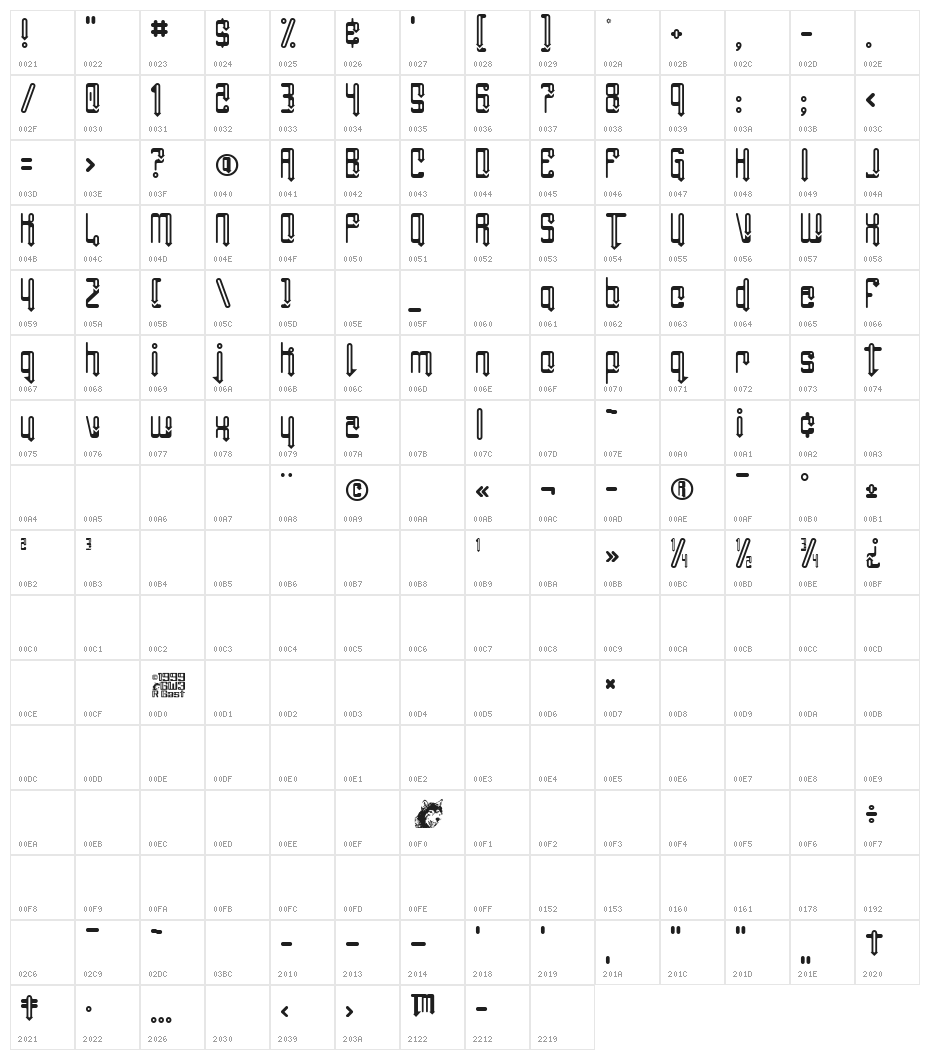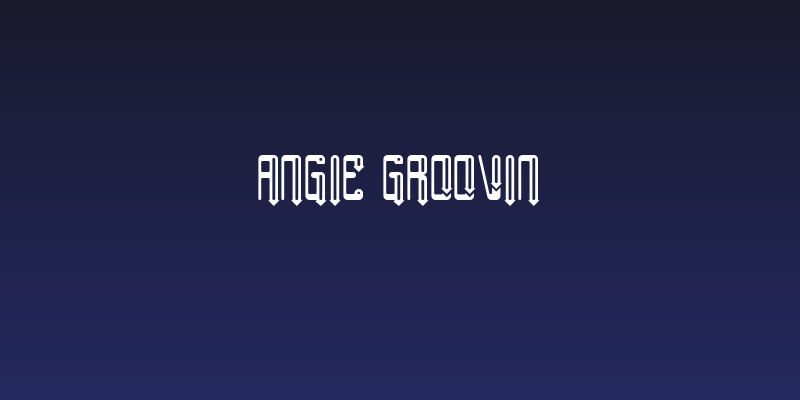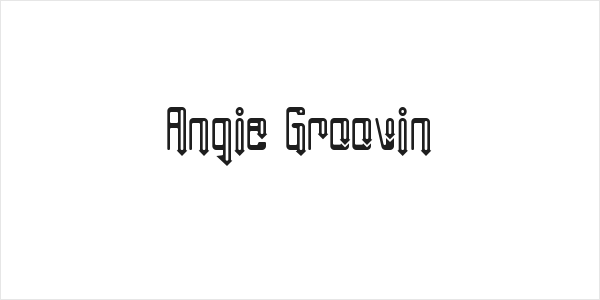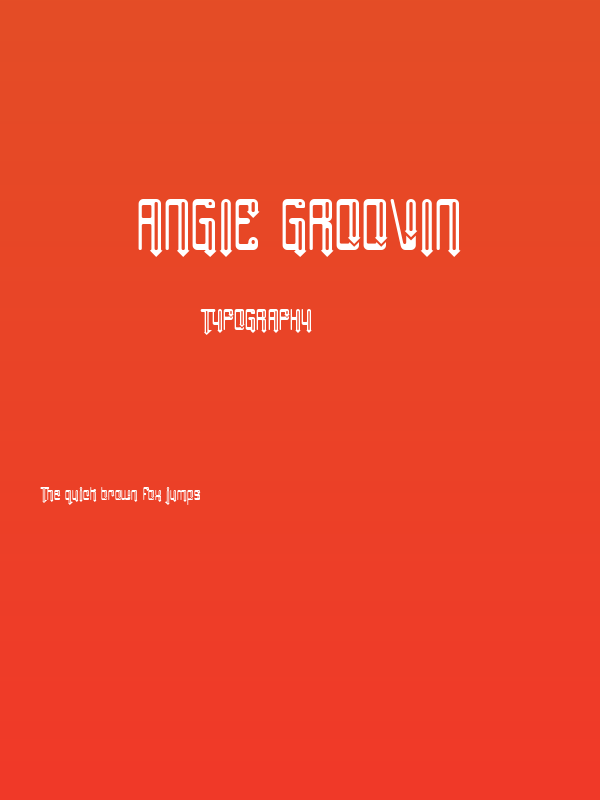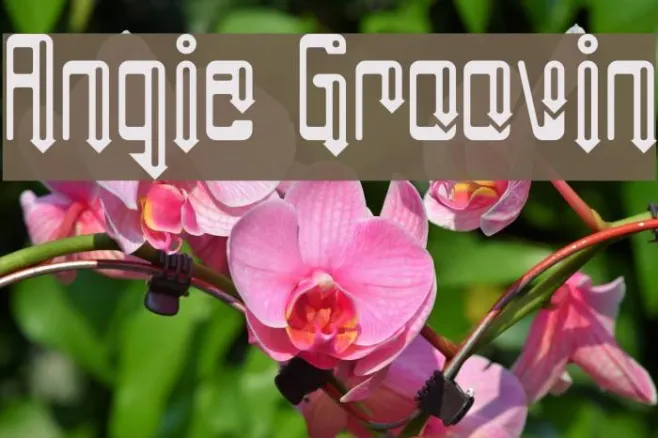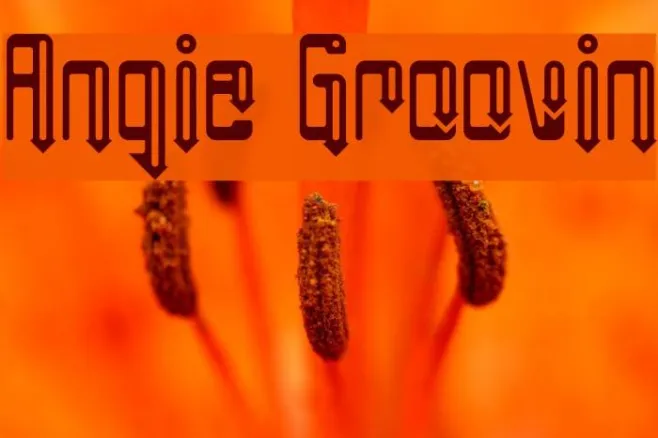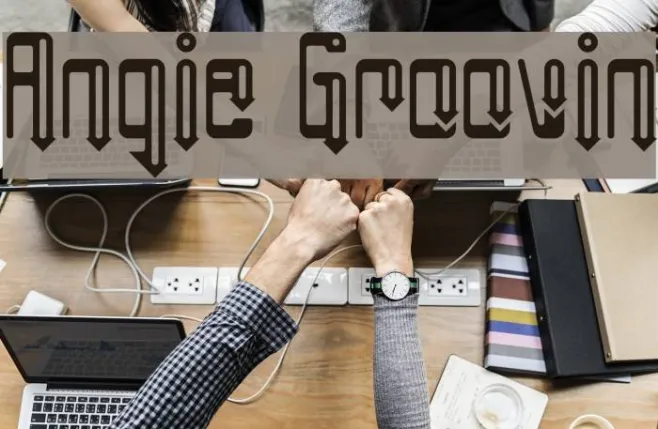
Angie Groovin Font
Angie Groovin Description
This font features a unique and modern design with geometric elements and a futuristic feel. The characters are constructed with bold, straight lines and sharp angles, giving it a distinctive, tech-inspired appearance. The uppercase and lowercase letters maintain a consistent style, with some characters incorporating small circular cutouts that add a playful touch. The numerals and special characters follow the same design principles, ensuring uniformity across the typeface. The overall look is both striking and versatile, making it suitable for various creative applications.
| Proposed Projects | Ideal for technology branding, futuristic posters, video game titles, and digital media projects. |